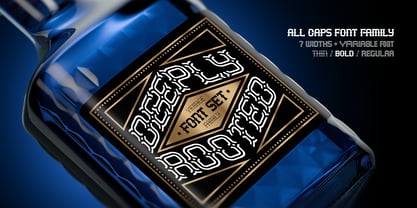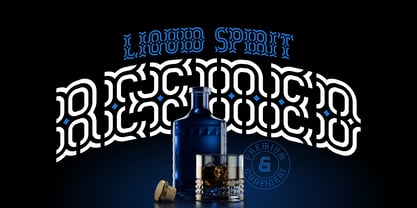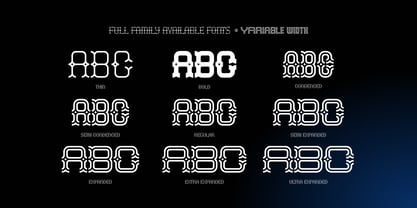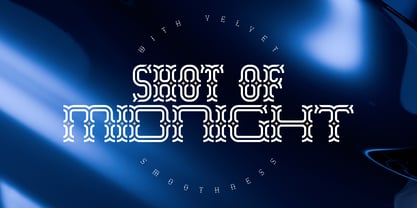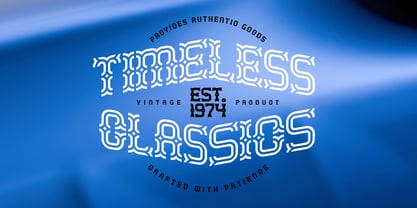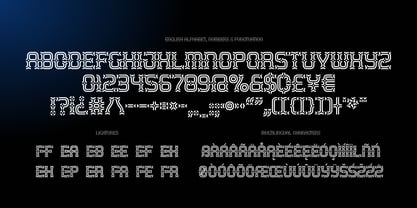
Deeply Rooted
by Gleb Guralnyk
The Deeply Rooted Font Family was designed by Gleb Guralnyk and published by Gleb Guralnyk. Deeply Rooted contains 10 styles and family package options. More about this family
Introducing the Deeply Rooted, original font crafted in a classic yet modern style. At its core is a font family with an original slab serif design, perfectly suited for classic branding and packaging.
Deeply Rooted is available in seven different width typefaces, ranging from Condensed to Ultra Expanded, alongside Thin and Bold weights. The family also includes a Variable version, allowing flexible width adjustments within a single file — a highly convenient feature for label templates or other lettering compositions.
Each font features a set of 231 characters, including ligatures and multilingual support. Check out the screenshots to see the full character set.